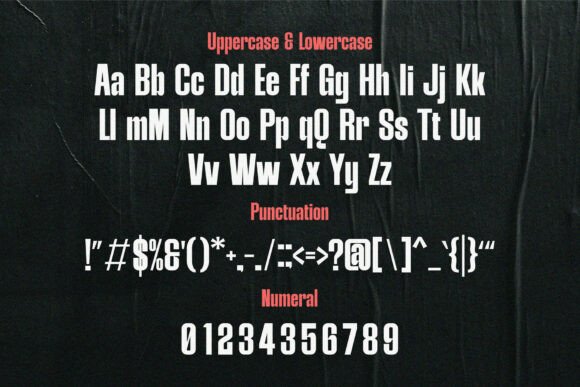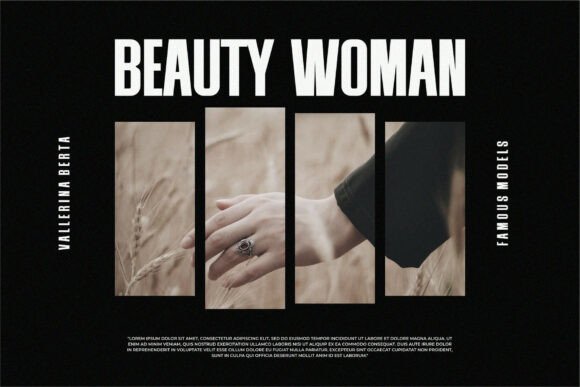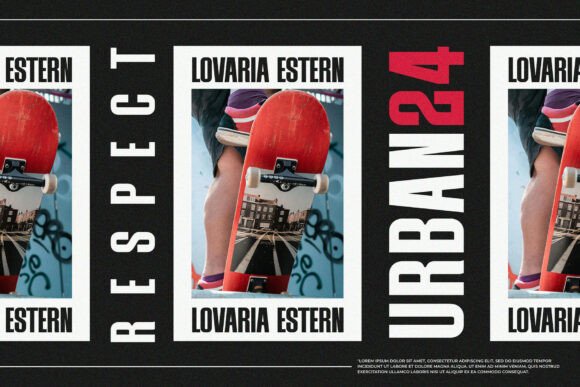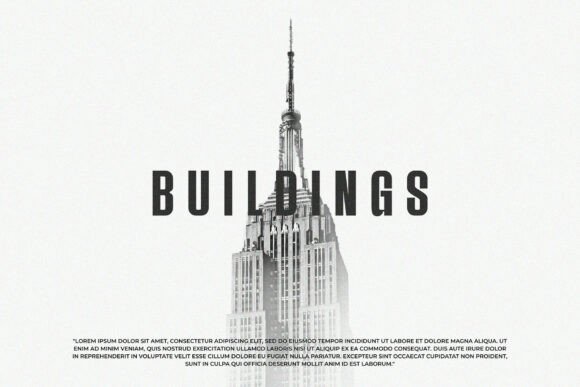
Gankies Font: The Ultimate Choice for Bold and Impactful Designs
In the world of typography, fonts play a crucial role in conveying messages, expressing emotions, and creating visual identities. For designers and crafters, finding the right font can make all the difference in creating stunning and effective designs. If you’re looking for a font that exudes confidence, power, and modernity, look no further than Gankies Font. In this article, we’ll explore the features, benefits, and uses of Gankies, and why it’s becoming a favorite among designers and crafters.
What is Gankies Font?
Gankies is a bold and condensed sans serif font that makes a powerful impression. With its tall characters and strong presence, it’s perfect for editorial headlines, posters, branding, and packaging where visual dominance is key. Clean, modern, and impactful, Gankies is designed to grab attention and leave a lasting impression.
Key Features of Gankies Font
- Bold and Condensed: Gankies is a bold and condensed font, making it perfect for headlines, titles, and short texts where impact is crucial.
- Sans Serif: The font features a clean and modern sans serif design, making it versatile and easy to read.
- Tall Characters: Gankies’ tall characters give it a strong and dominant presence, making it perfect for posters, billboards, and other large-format designs.
- Clean and Modern: The font’s clean and modern design makes it perfect for contemporary designs, from editorial and advertising to branding and packaging.
Benefits of Using Gankies Font
So why choose Gankies Font for your designs? Here are just a few benefits:
- Instant Impact: Gankies’ bold and condensed design makes it perfect for grabbing attention and creating an instant impact.
- Versatility: The font’s clean and modern design makes it versatile and easy to use in a variety of contexts, from editorial and advertising to branding and packaging.
- Time-Saving: With Gankies, you can create stunning and effective designs in no time, thanks to its easy-to-read and bold design.
- Unique Identity: Gankies’ strong presence and modern design help create a unique visual identity for your brand or project.
Use Cases for Gankies Font
Gankies Font is perfect for a variety of design applications, including:
- Editorial Headlines: Use Gankies to create bold and attention-grabbing headlines for magazines, newspapers, and online publications.
- Posters and Billboards: Gankies’ tall characters and strong presence make it perfect for large-format designs, such as posters and billboards.
- Branding and Packaging: Use Gankies to create a bold and modern visual identity for your brand or product.
- Advertising: Gankies’ impact and versatility make it perfect for advertising designs, from print and digital ads to social media graphics.
Tips for Using Gankies Font
Here are a few tips for getting the most out of Gankies Font:
- Use it sparingly: Gankies’ bold design can be overwhelming if overused. Use it sparingly to create impact and emphasis.
- Pair it with a neutral font: Pair Gankies with a neutral font to create contrast and visual interest.
- Experiment with colors: Gankies looks great in a variety of colors. Experiment with different colors to find the one that works best for your design.
In conclusion, Gankies Font is a powerful and versatile font that’s perfect for designers and crafters looking to create bold and impactful designs. With its clean and modern sans serif design, tall characters, and strong presence, Gankies is sure to grab attention and leave a lasting impression. Whether you’re working on editorial headlines, posters, branding, or packaging, Gankies is the ultimate choice for creating stunning and effective designs.